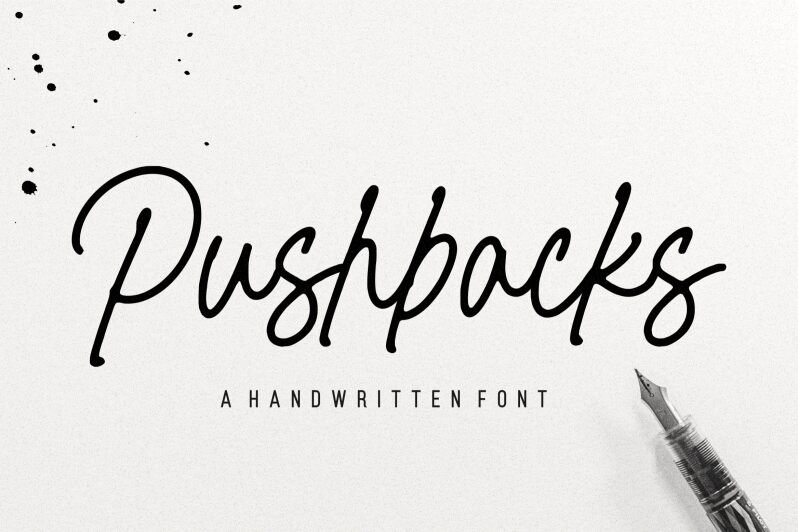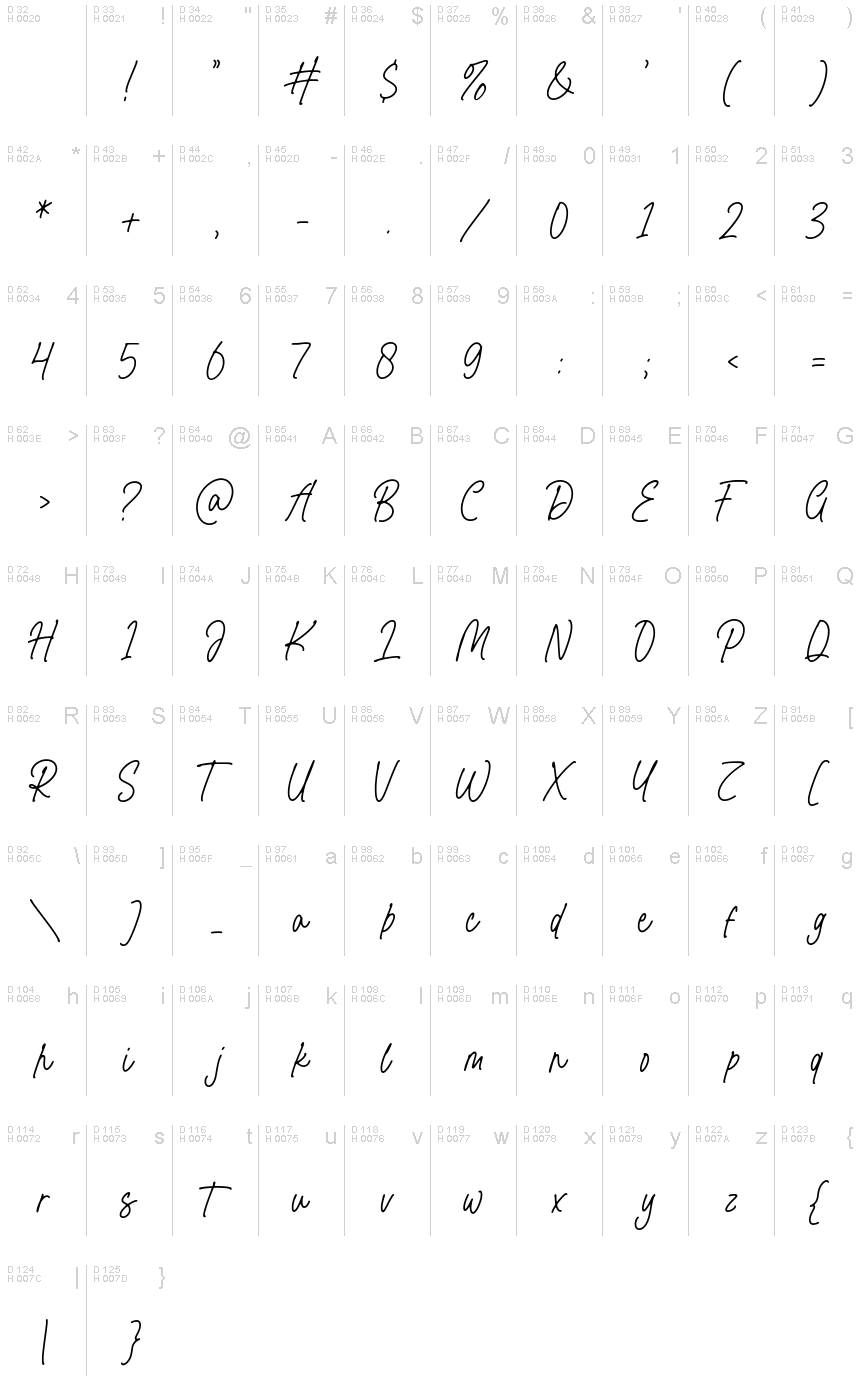
Pushbacks
Pushbacks, a handwritten signature-style font crafted by Letterative Studio, exudes a captivating blend of elegance and effortless charm. This light, condensed typeface boasts a captivating fluidity, with each stroke seamlessly transitioning into the next, creating a sense of organic movement and authenticity. The Pushbacks font's distinctive personality and visual appeal make it an alluring choice for those seeking to infuse their designs with a touch of personalized flair.
The versatility of Pushbacks allows it to seamlessly integrate into a wide range of creative projects, from editorial layouts and branding materials to packaging, event invitations, and social media content. Its delicate, yet impactful presence can elevate the aesthetic of any design, lending a sophisticated and memorable touch to various industries, including fashion, lifestyle, and the arts.